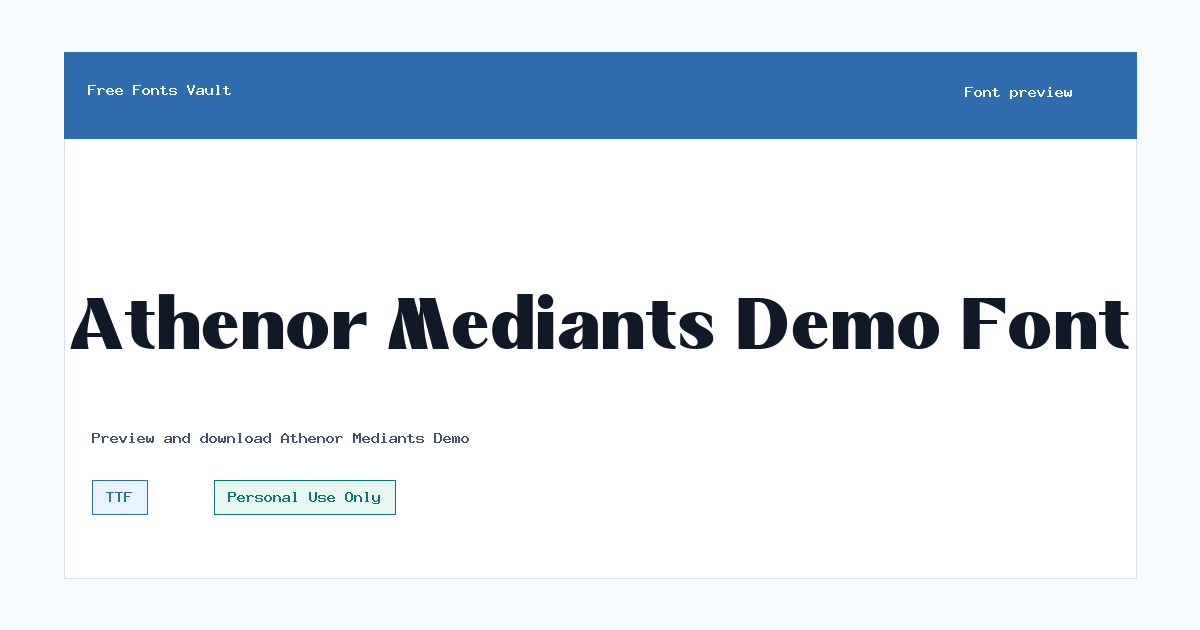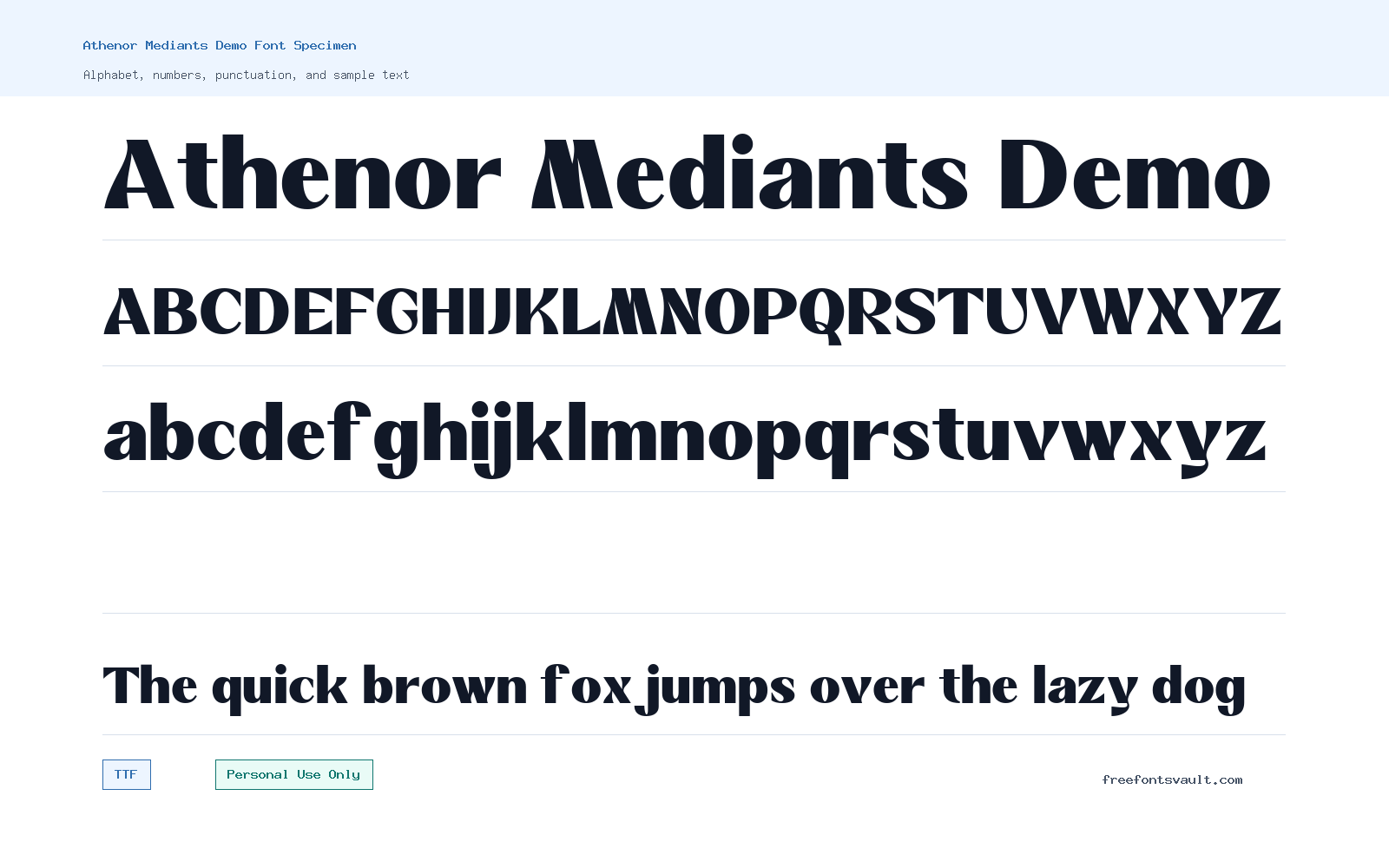
Athenor Mediants Demo
Athenor Mediants Demo font preview showing the family name
Athenor Mediants Demo Font
Athenor Mediants Demo font specimen showing alphabet, numbers, and sample text
• Designer Ragamkata Studio
Athenor Mediants Demo font.
Athenor Mediants Demo is a sans serif font from Ragamkata Studio with a Personal Use Only license. It is a practical choice to test in display layouts, branding drafts, poster concepts, and visual mockups before deciding whether it fits a larger project.
About Athenor Mediants Demo
Athenor Mediants Demo is presented as a demo-style sans serif font, so it is best approached as a preview and personal project typeface rather than a finished commercial-use asset. The regular style is supplied in TTF format with normal styling and a 400 weight, which makes it easy to install and test in common design apps. Because only one regular variant is listed, the font works best when you build contrast through size, spacing, color, layout, or pairing rather than relying on multiple weights from the same family.
For visitors testing the font, start with short words, headings, logo drafts, poster titles, social graphics, and web hero mockups. Sans serif fonts can be useful for clean, direct layouts, but every font has its own rhythm, spacing, and readability limits. Try the preview with uppercase words, mixed-case titles, numbers, and a few punctuation-heavy lines. If the letter spacing feels tight in a logo or headline, adjust tracking manually. If you plan to use it in body text, test longer sentences at smaller sizes first, because a display-friendly look does not always translate well to paragraphs.
Athenor Mediants Demo can be useful in early branding exploration because a single regular style keeps the design process focused. You can test it for nameplates, packaging sketches, presentation covers, mood boards, and website mockups without building a complex type system. For logo work, check how the first and last letters balance, how the font behaves in all caps, and whether distinctive characters help or distract from the mark. For posters, use it at larger sizes where spacing and shape are easier to control.
Pairing should stay simple. Since Athenor Mediants Demo is a sans serif, it may work with a quiet serif for editorial contrast, a neutral sans serif for supporting text, or a plain system font for interface mockups. Avoid pairing it with another expressive headline font unless the two serve clearly different roles. In most layouts, let Athenor Mediants Demo handle the title or focal word, then use a calmer companion font for descriptions, captions, pricing, dates, and calls to action.
• Best tested in short display settings such as names, titles, and mockups
• Single-style family that benefits from careful spacing and simple font pairing
• Personal logo drafts and brand concept sketches
• Poster titles, cover concepts, and social media graphics
• Website hero mockups and landing page headline tests
• Packaging studies, mood boards, and presentation title slides
• Typography experiments where a clean sans serif direction is needed
Who designed Athenor Mediants Demo?
The font is credited to Ragamkata Studio.
What style of font is Athenor Mediants Demo?
It is described as a sans serif font. The listed variant is a regular, normal-style 400 weight.
Is it good for body text?
Test it before using it for long reading. With only a regular style listed, it is safer to use it for headings, short labels, and display text, then pair it with a highly readable font for paragraphs.
What should I pair with Athenor Mediants Demo?
Try a simple serif for contrast or a neutral sans serif for supporting text. Keep the companion font quiet so the main heading does not compete with the rest of the layout.